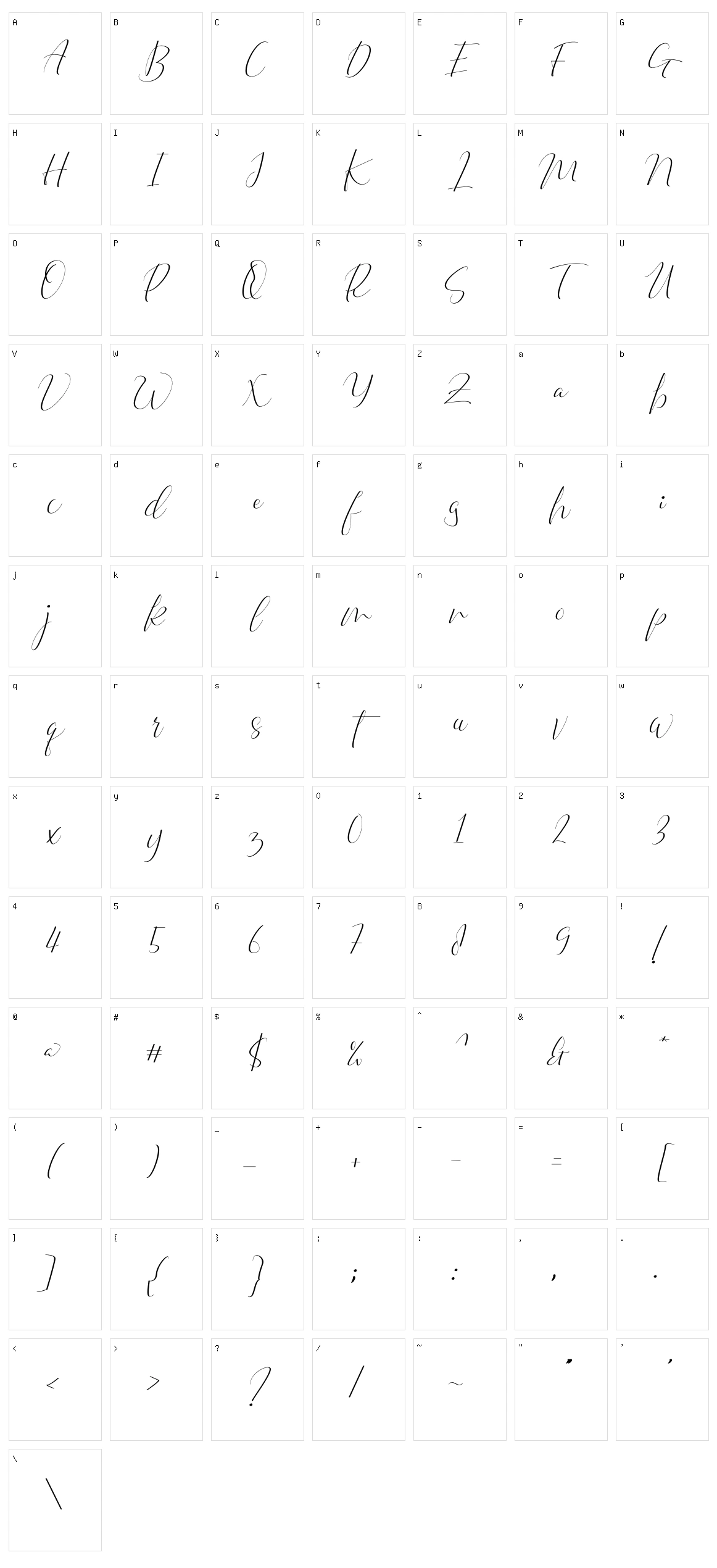
The free font Zaitune is carefully designed by fontpremium, showcasing a thoughtful balance of creativity and usability and falls under the Script font style. When you download the ZIP file, it contains only 45.95 KB of font files, making it lightweight and quick to download. Please review the license details below to understand permitted usage and distribution rights. If license information is not available, we recommend using this font for personal projects only or contacting the author directly for commercial usage permissions.